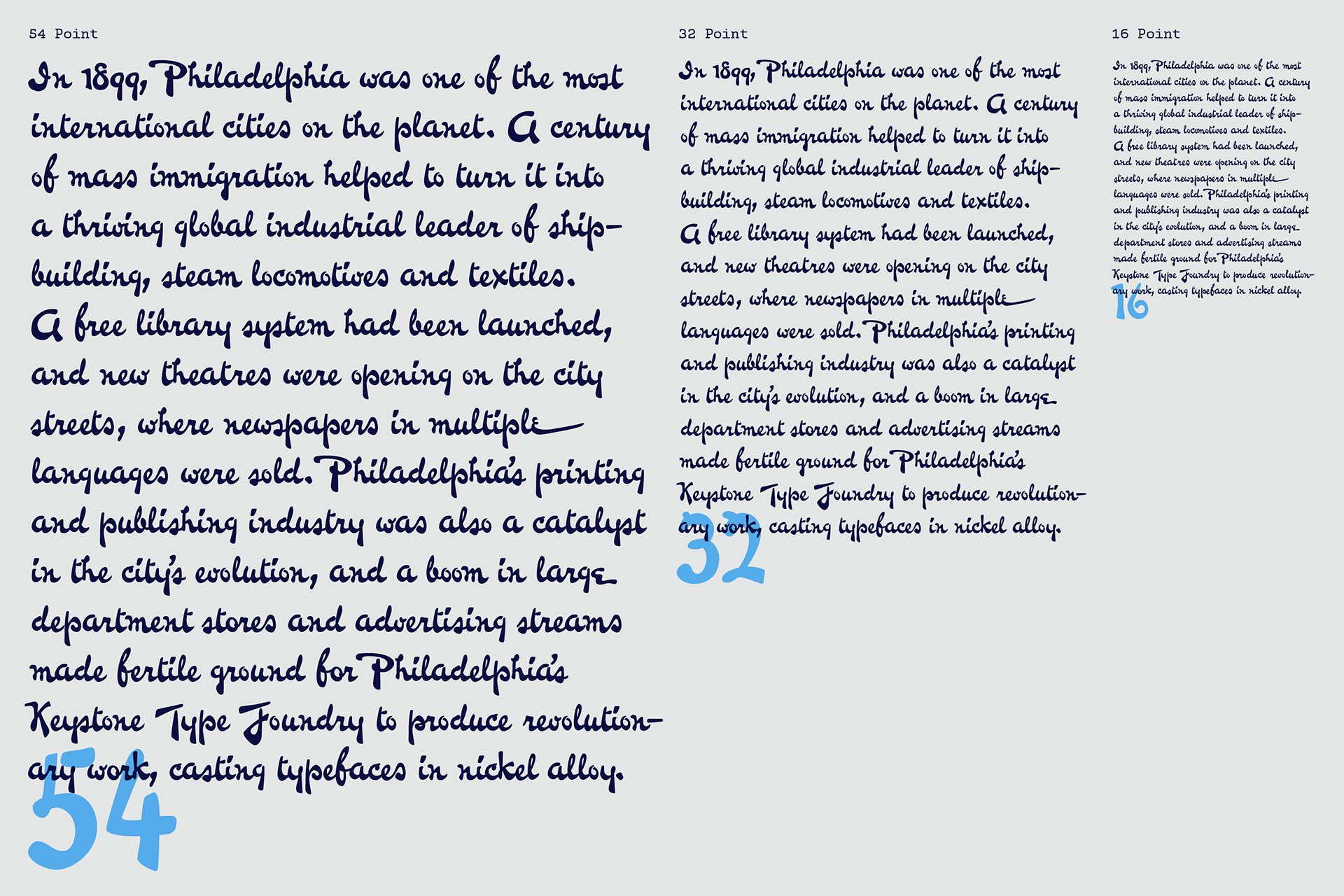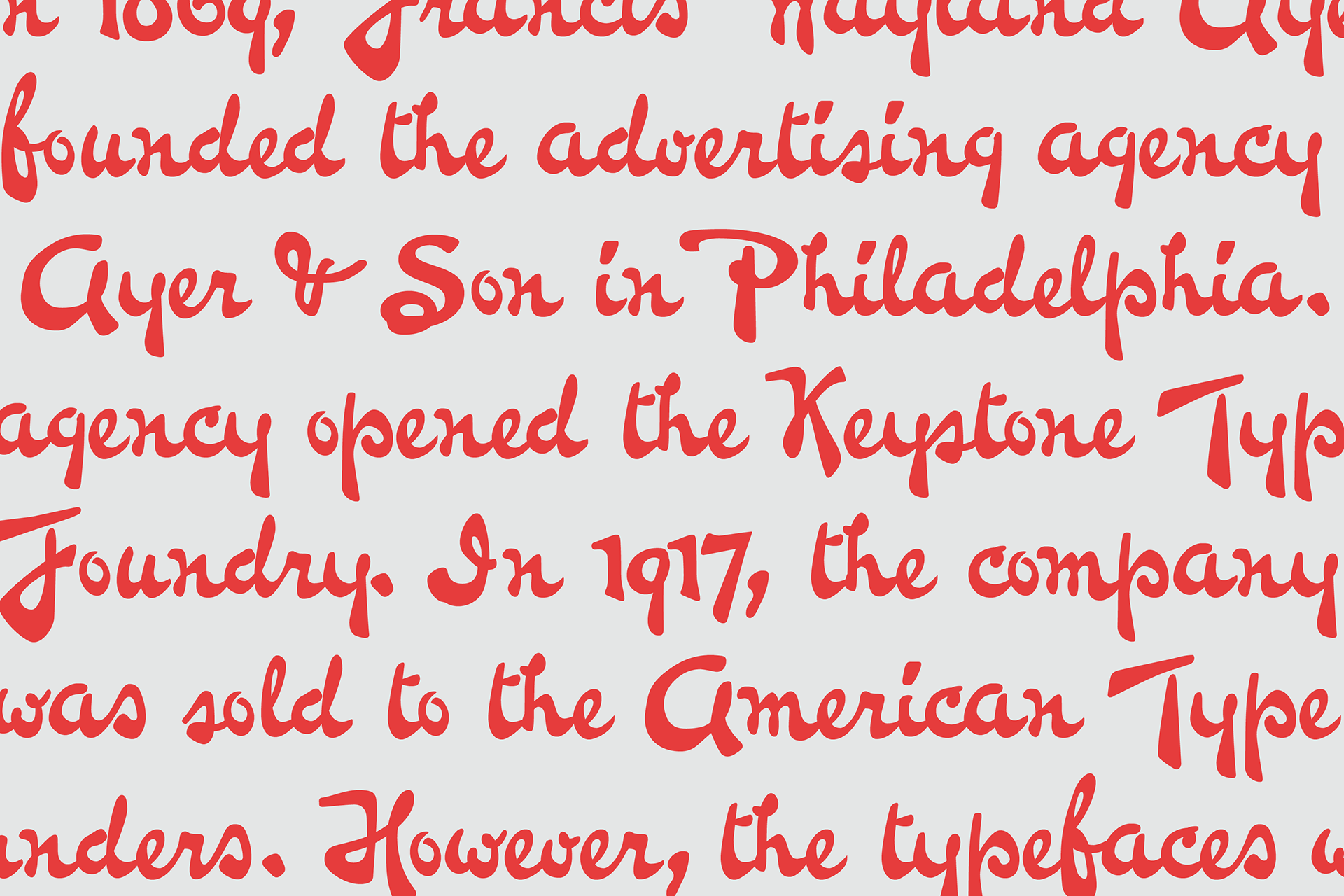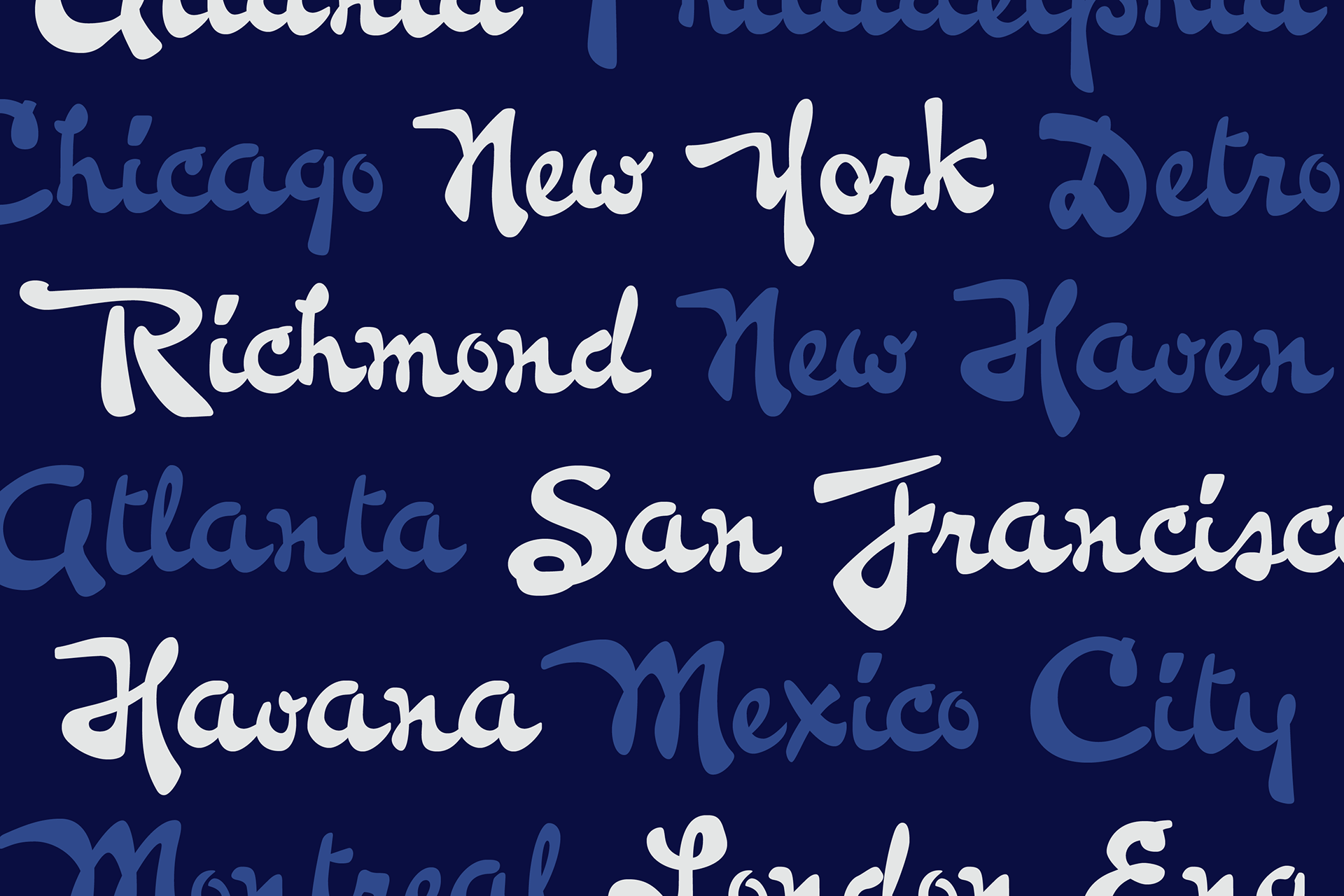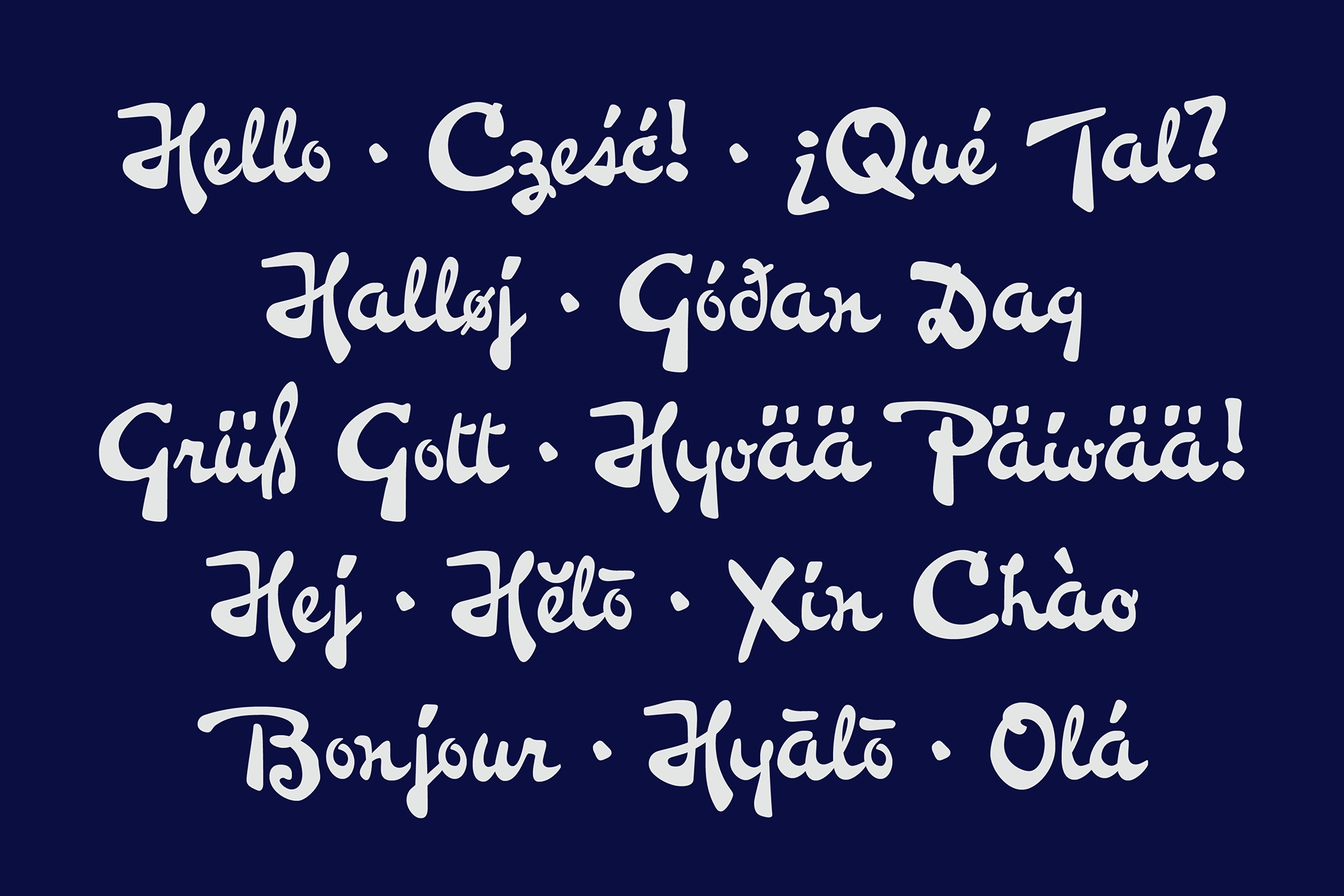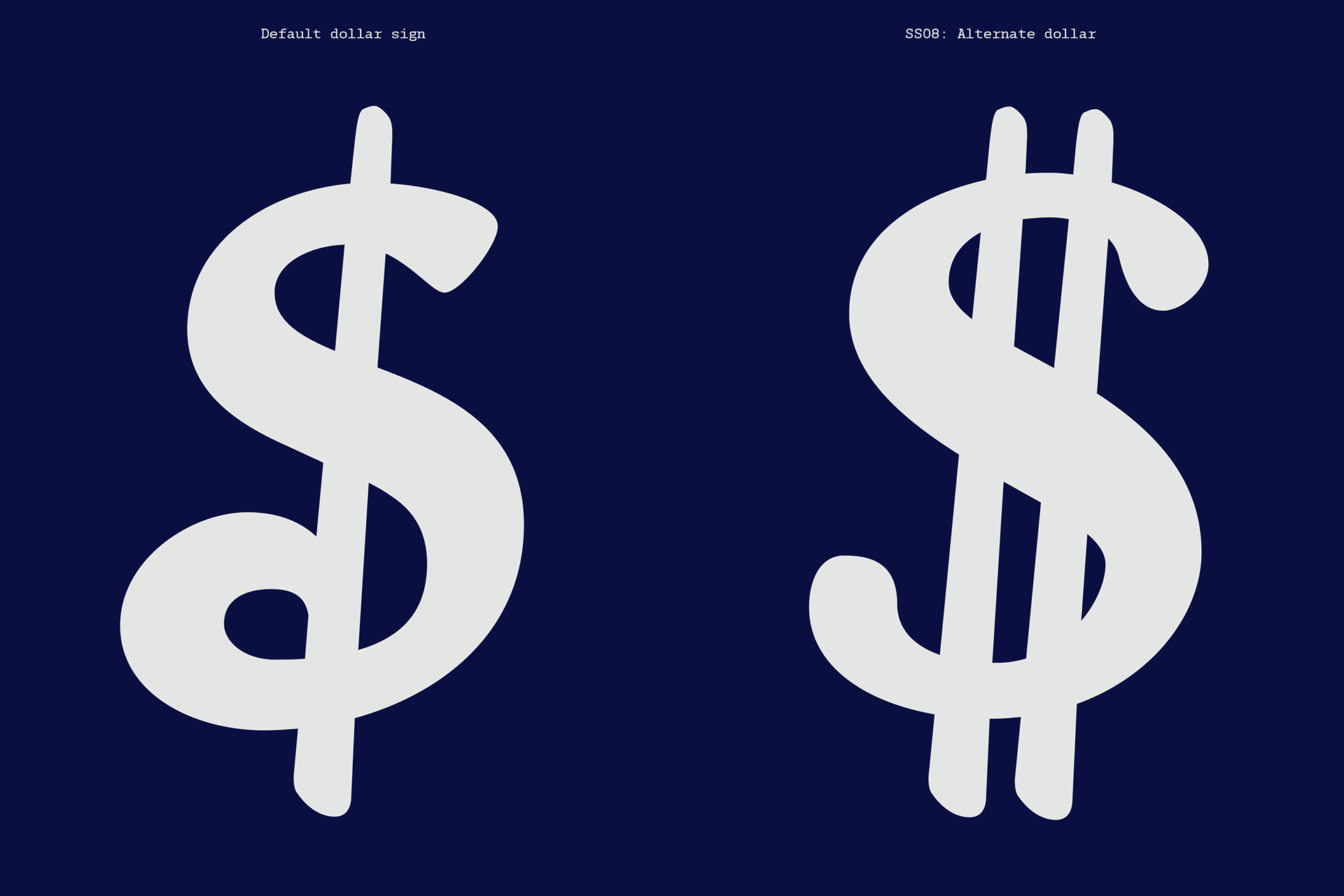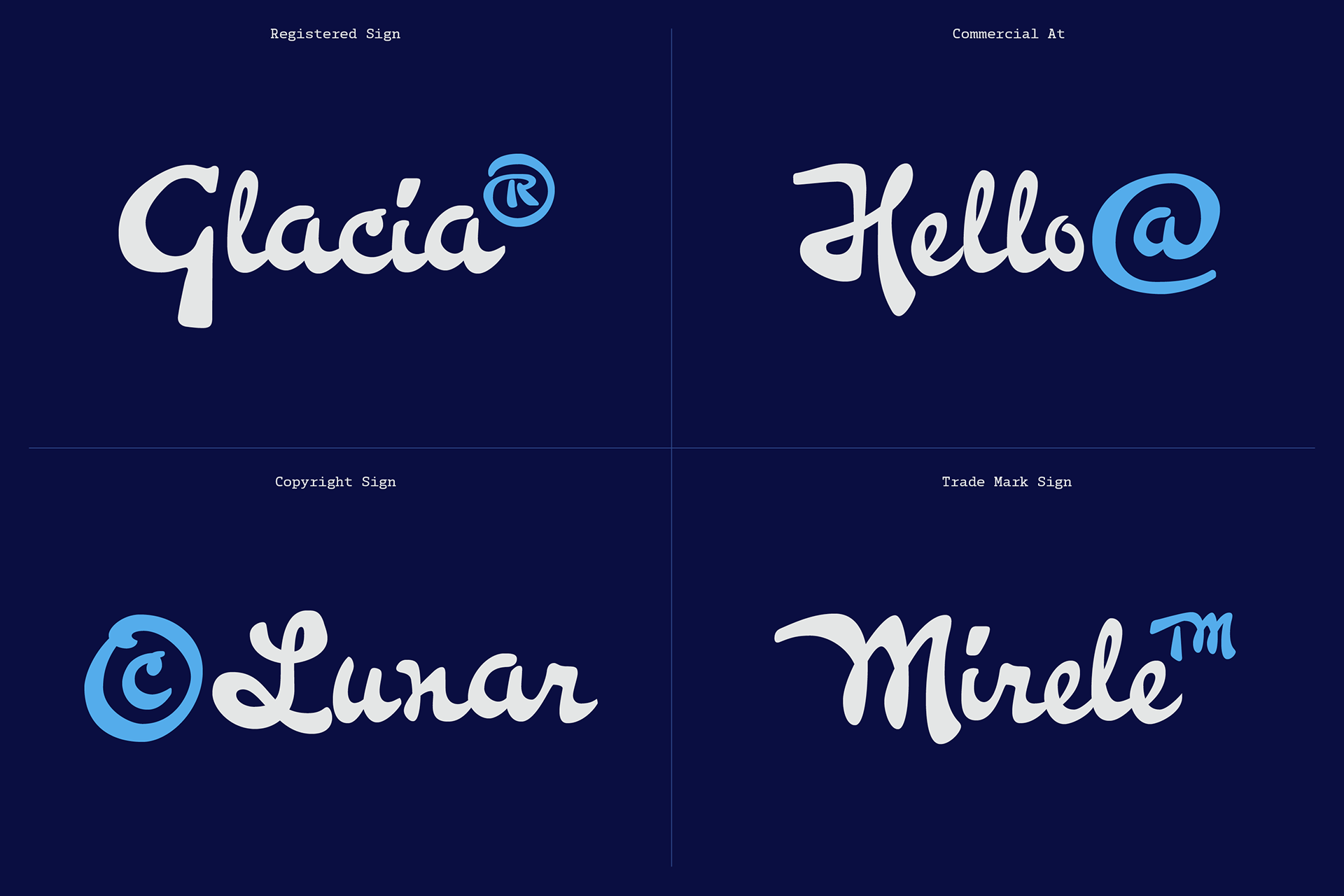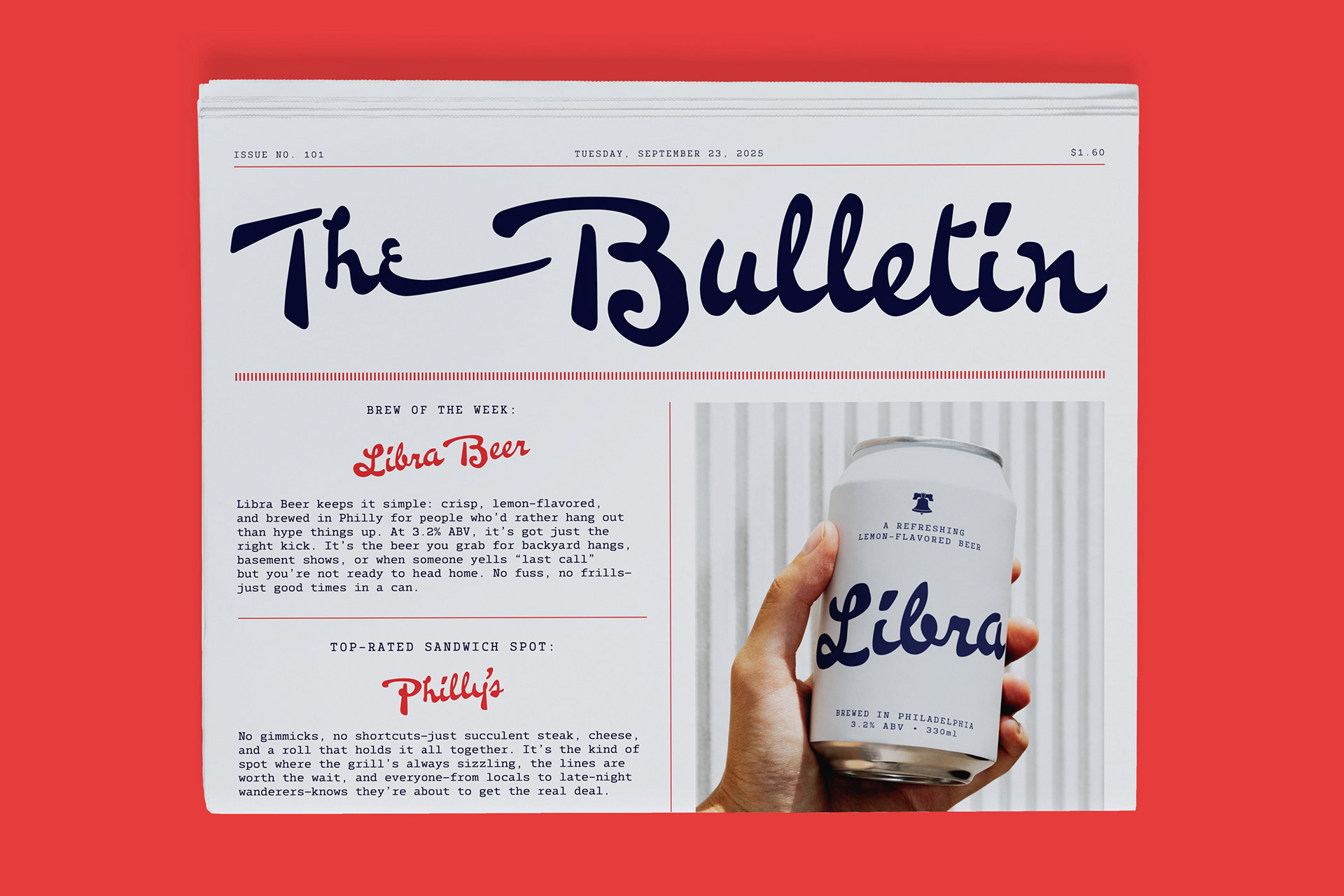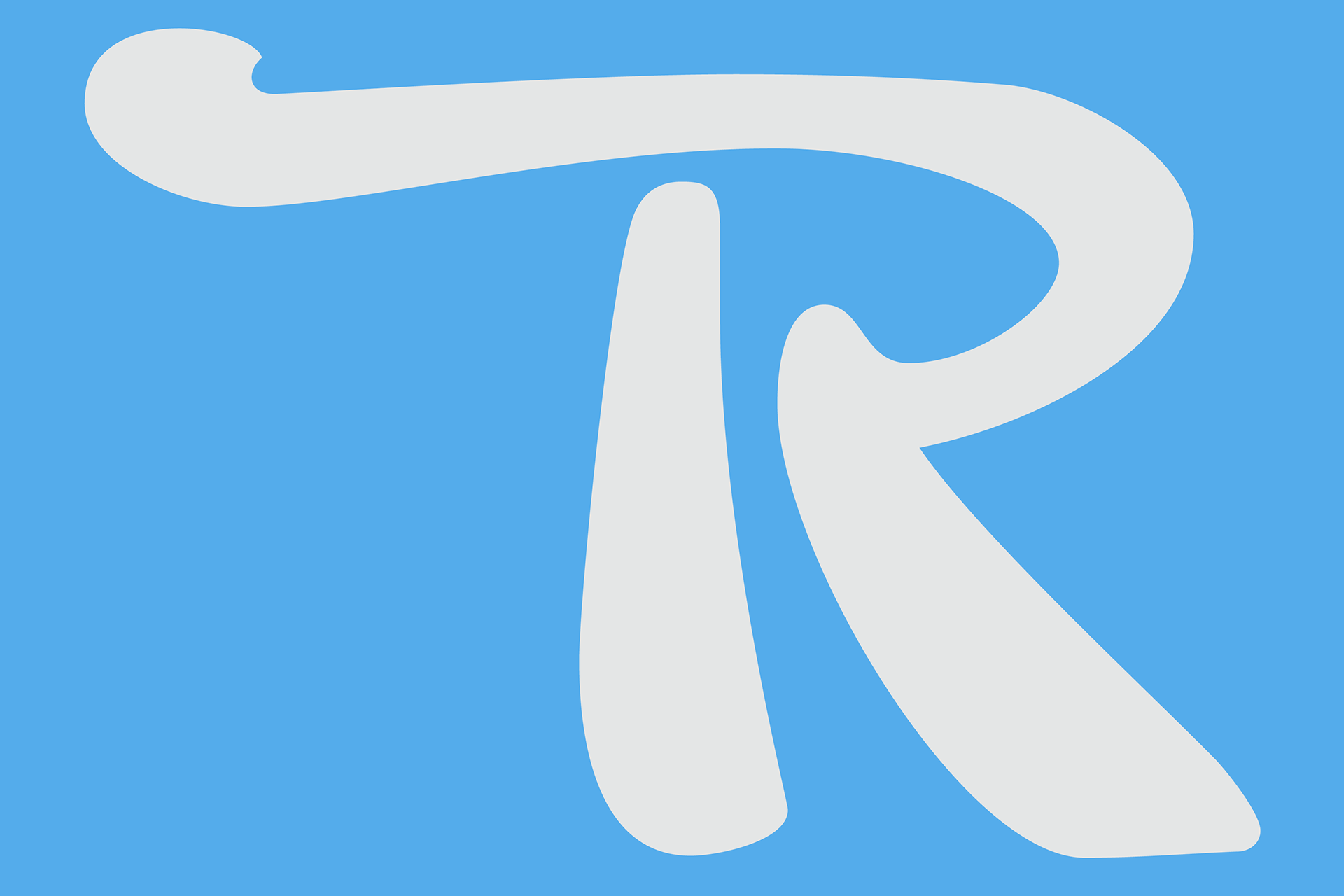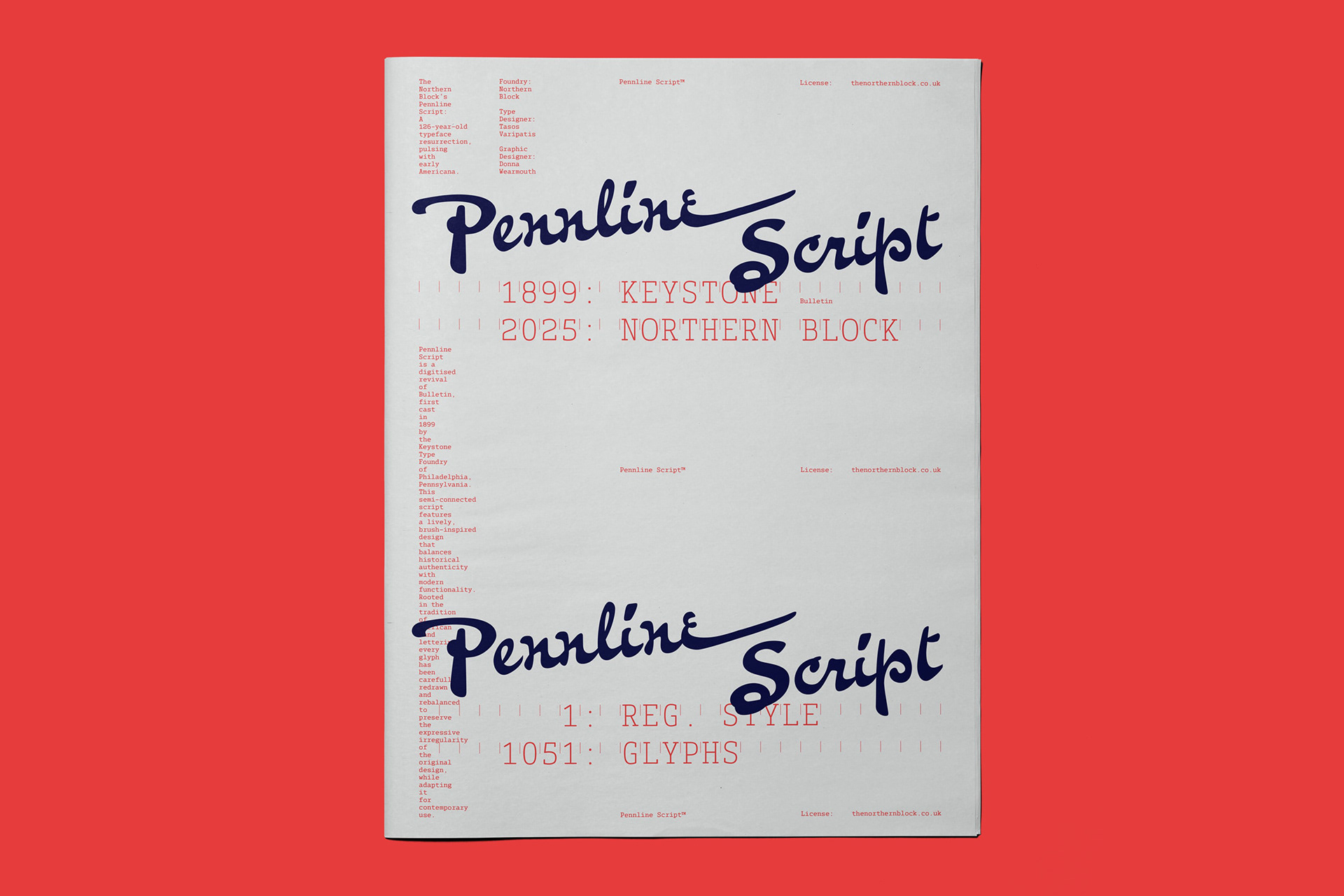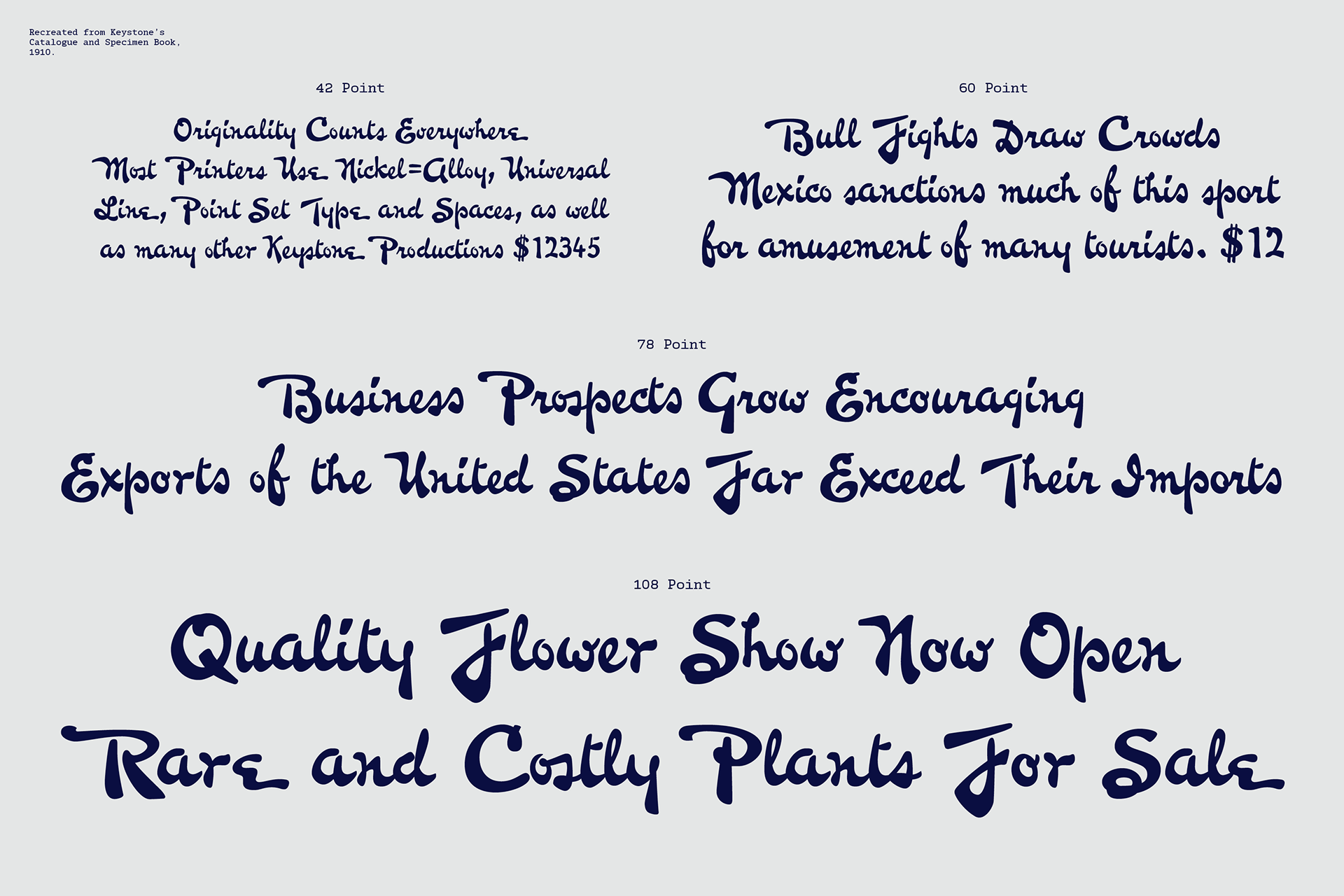
Pennline Script — Typeface
Pennline Script is a digitised revival of Bulletin, first cast in 1899 by the Keystone Type Foundry of Philadelphia, Pennsylvania, USA. This semi-connected script features a lively, brush-inspired design that balances historical authenticity with modern functionality. Rooted in the tradition of American hand lettering, every glyph has been carefully redrawn and rebalanced to preserve the expressive irregularity of the original design, while adapting it for contemporary use. Designed for moments that call for attention, warmth, and flair, Pennline Script thrives in headlines, packaging, and editorial—anywhere words need personality without sacrificing legibility. Its approachable vintage style makes it an ideal choice for projects aiming to evoke a sense of nostalgia.